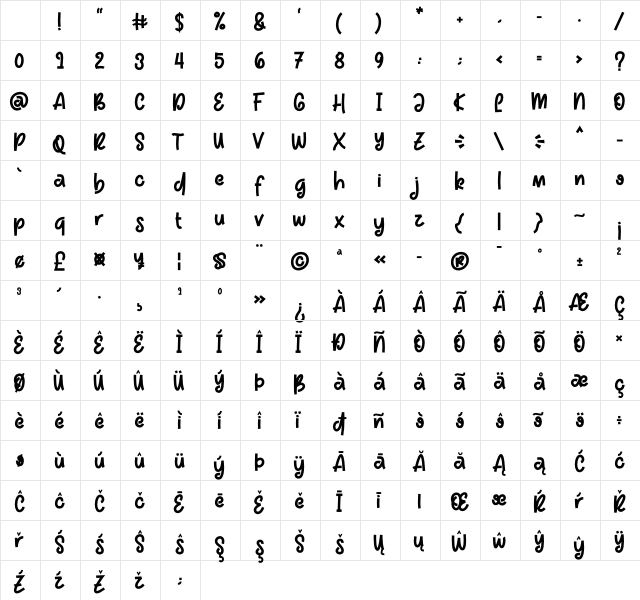
Complete Foodpacker Regular glyph index. Displaying only characters natively supported by Foodpacker Regular font.
Foodpacker is a composed and adaptable typeface that performs quietly and consistently across a wide range of design contexts.